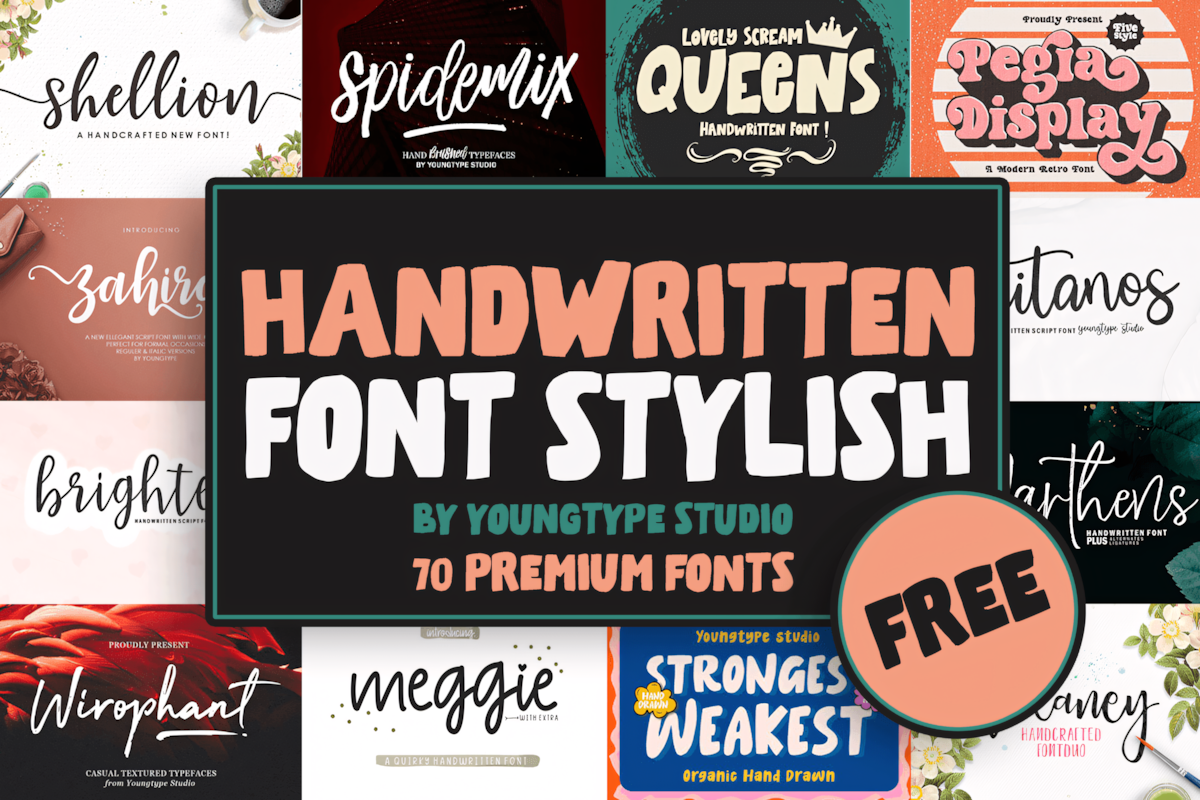
This collection includes 70 beautifully designed fonts, seamlessly blending classic and modern styles for stunning lettering. Perfect for posters, branding, invitations, and more!